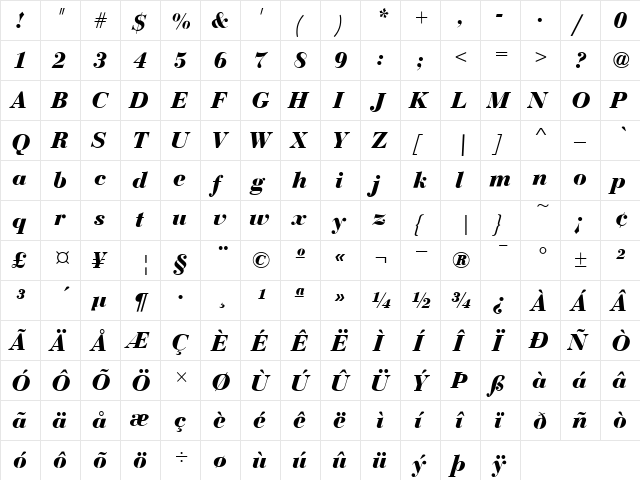
Bauer Bodoni D ItalicBold
Design Context for Bauer Bodoni D Typeface
Bauer Bodoni D is a composed and adaptable typeface that performs quietly and consistently across a wide range of design contexts. Its italic angle brings a sense of urgency and motion to the letterforms. Its bold stroke weight gives it real presence on the page.
Pro Tip: Use Bauer Bodoni D for emphasis, pull quotes, and subheadings where its slanted energy can add rhythm to the layout.